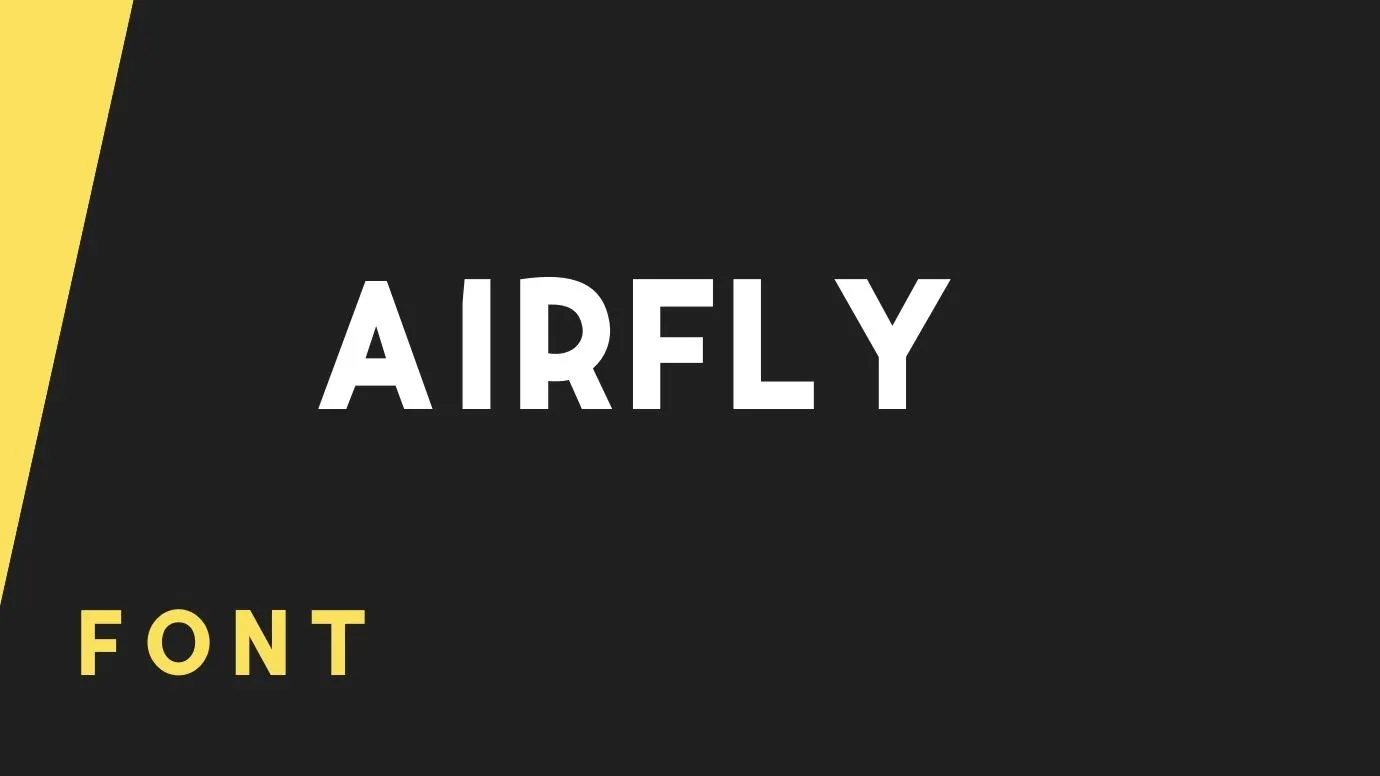
Airfly Font is a sans-serif font. It has been designed in 2017 by notable Shaped Fonts. It has sharp edges and straight lines. The font style includes regular, light, and italic versions to suit your designs for personal work.
The three appealing styles incorporate several elements like capital and lowercase letters, numbers, punctuation, characters, special symbols, codes, and glyphs.
With its simple character, it has been created to represent a smooth and balanced typeface. It includes a full set of Latin characters, symbols, and words, as well as support for many international languages.
You can pair sui generis font with this font. Both match each other and give a stunning appearance to your projects. The typeface has a unique design that makes it stand out from other typefaces. The shapes of the letters are so elegant that you can create various designs with them.
Airfly Font is a sans-serif font. It has been created in 2017 by famous Shaped Fonts. The creator is known for creativity in designs.
What typeface does Airfly come in?
Airfly Font is a sans-serif font. It has been created by notable Shaped Fonts. It can be used in a variety of applications.
What are the main features of the Airfly typeface?
Airfly is perfect for multifunctional headlines and text blocks. It has sharp edges and straight lines. It comes in three different styles.
Where can I utilize the Airfly typeface?